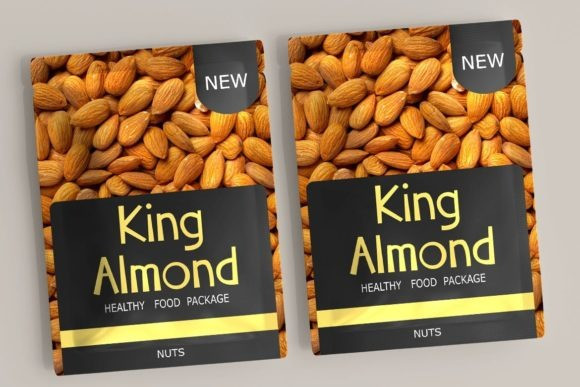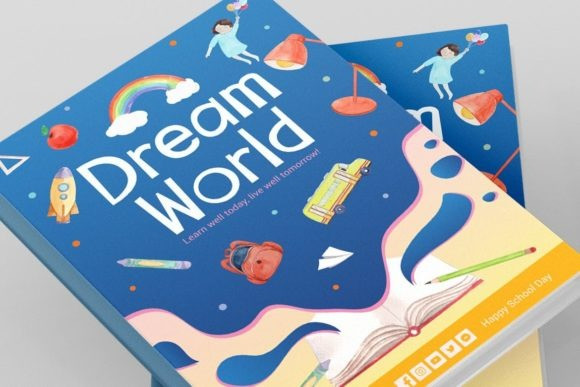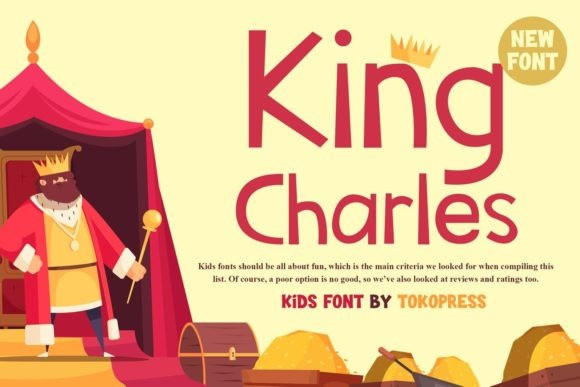
King Charles Display Font
King Charles is a cool and adaptable display font. No matter the topic, this font will be an incredibly asset to your fonts’ library, as it has the potential to elevate any creation.